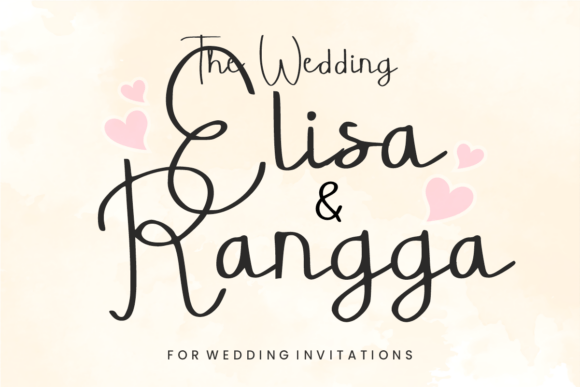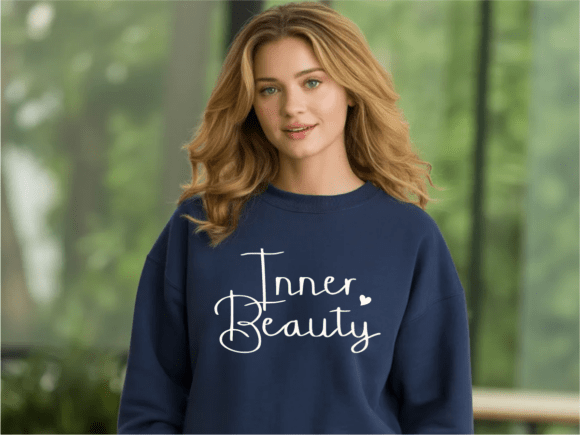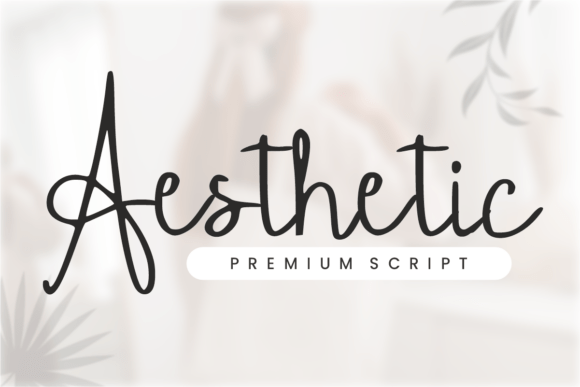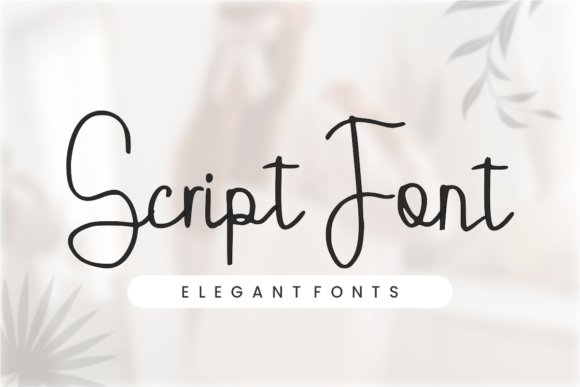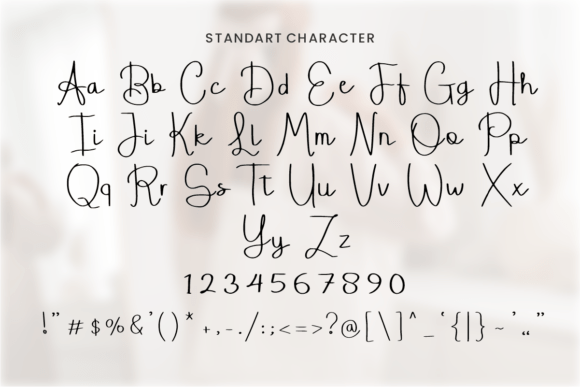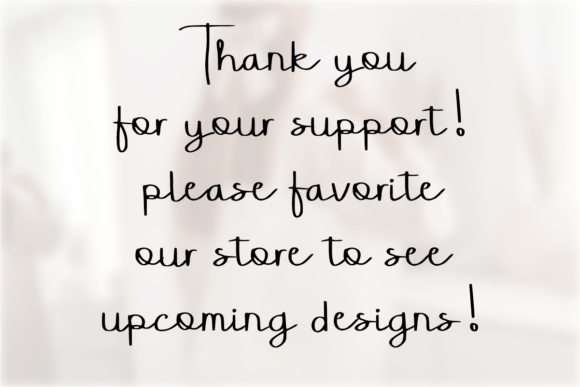
✨ Aname Handwriting – Effortless & Elegant Script Font ✨
Have you ever been in the middle of a design project, and suddenly, you’re stuck on finding the perfect font? I recall a recent experience where a client requested a custom wedding invitation design, and I was struggling to find a script font that exuded both elegance and a personal touch. That’s when I stumbled upon Aname Handwriting, and it instantly became my go-to font for the project. In this article, I’ll share my journey with Aname Handwriting, its features, and how you can make the most of this beautiful font in your creative projects.
An Honest Review of Aname Handwriting
• Fluid Strokes: Aname Handwriting captures the essence of natural penmanship with its smooth, flowing strokes that give it an organic feel.
• Elegant yet Approachable: The font strikes a perfect balance between sophistication and friendliness, making it suitable for a wide range of design projects.
• Clean and Thin Lines: Its minimalist approach makes it versatile for various applications, from wedding invitations to social media graphics.
• Effortless to Read: Despite its elegant appearance, Aname Handwriting remains highly legible, ensuring your message is conveyed clearly.
• ⚠️ Limited Use in Small Sizes: Like many script fonts, Aname Handwriting may lose some of its charm when used in very small sizes. It’s best used in larger sizes where its details can shine.
• ⚠️ Requires Attention to Kerning: To maximize its beauty, you might need to adjust the kerning between letters, especially in larger blocks of text.
The Backstory of Aname Handwriting
Aname Handwriting was crafted with the intention of capturing the essence of natural, handwritten script in a digital format. The designer aimed to create a font that feels both personal and elegant, suitable for a variety of creative projects. While the specific details about the designer might be scarce, the font’s characteristics suggest a deep understanding of typography and a passion for creating beauty through simplicity.
Q: Is Aname Handwriting suitable for body text?
A: While Aname Handwriting is elegant and legible, it’s best used for headings or short paragraphs. For longer body text, a more straightforward font might be more appropriate.
Q: Does Aname Handwriting support OpenType features?
A: Yes, Aname Handwriting supports OpenType features, including stylistic alternates and glyphs, which can enhance the font’s versatility in your designs.